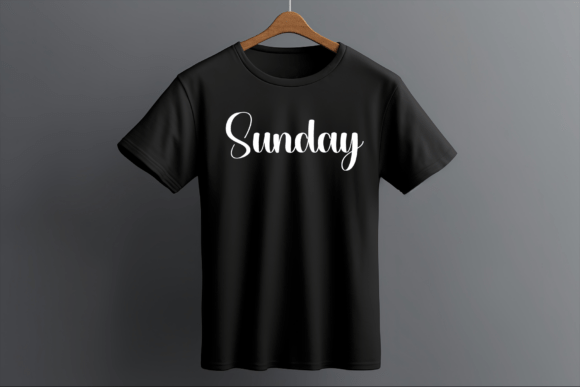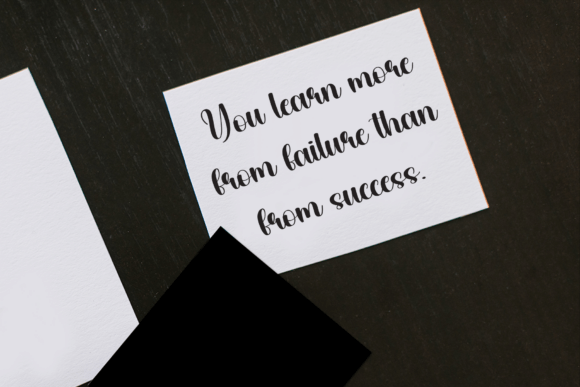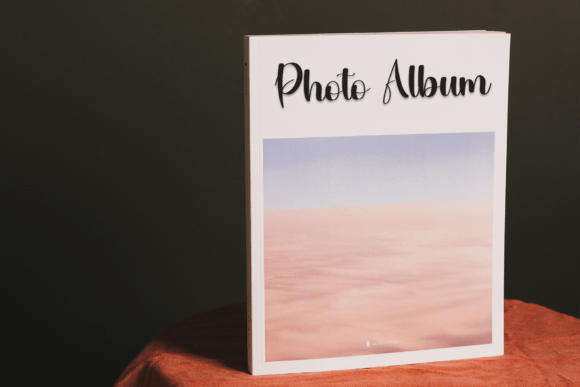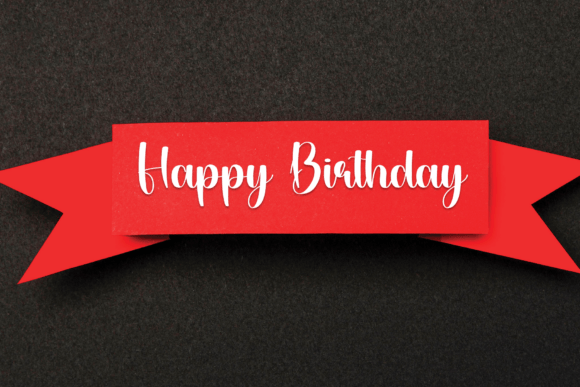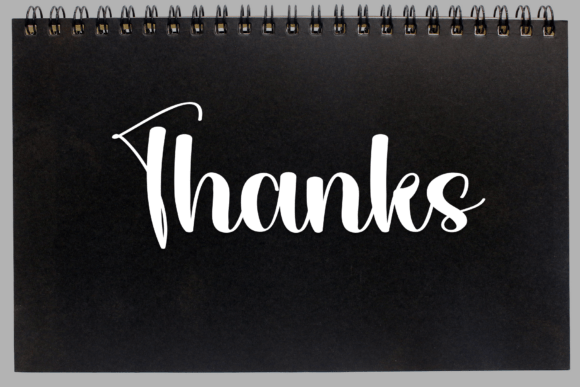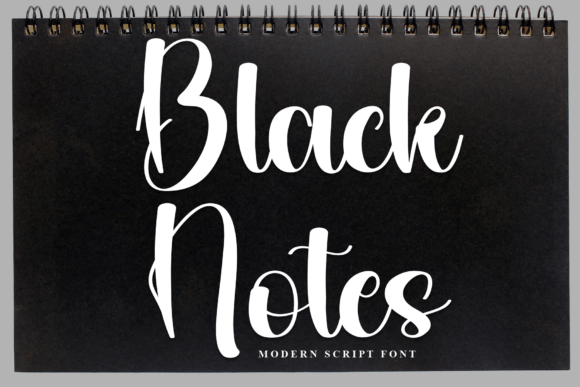
Discover the Elegance of Black Notes Font
Have you ever been in the middle of a design project, and suddenly, you’re struck by the daunting task of finding the perfect font? I recall a particularly frustrating moment when a client’s wedding invitation project required a unique, elegant script font that would make their special day even more memorable. After an exhaustive search, I stumbled upon the Black Notes font, and it instantly became my go-to typeface for a wide range of creative projects.
An Honest Review of Black Notes Font
So, what makes Black Notes font stand out from the rest? Let’s dive into the good stuff and a few quirks I’ve encountered.
• ✨ Smooth Connections: The fluid handwriting style of Black Notes ensures a sophisticated flow that’s pleasing to the eye.
• ✅ Excellent Legibility: Despite its elegant and cursive nature, this font remains clear and readable, making it perfect for various design applications.
• 🌈 Versatility: From branding and wedding invitations to product labels and social media quotes, Black Notes adapts seamlessly to different design needs.
• 🔍 PUA Encoding: The font’s PUA (Private Use Area) encoding allows for effortless access to all glyphs, swashes, and alternate characters, making customization a breeze.
• 🤔 Learning Curve for OpenType Features: While not extensive, mastering the OpenType features and glyphs might require a bit of practice, especially for those new to using such advanced typographic tools.
• ⚠️ Occasional Kerning Adjustments: As with many script fonts, you might need to tweak kerning for optimal results in certain design contexts.
The Backstory of Black Notes Font
While the origins of Black Notes might be shrouded in mystery, it’s clear that its design was inspired by a desire to merge the fluidity of handwriting with the sophistication of modern typography. The creators aimed to produce a font that not only exudes elegance but also offers versatility and legibility across various design applications.
Q: Is Black Notes suitable for body text?
A: While Black Notes is primarily designed for display purposes, its legibility makes it suitable for short paragraphs of body text. However, for extensive reading materials, a more traditional serif or sans-serif font might be more appropriate.
Q: How do I access the swashes and alternate characters in Black Notes?